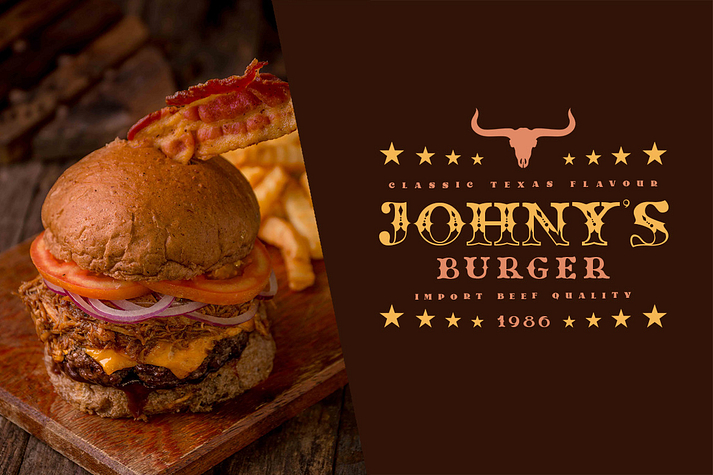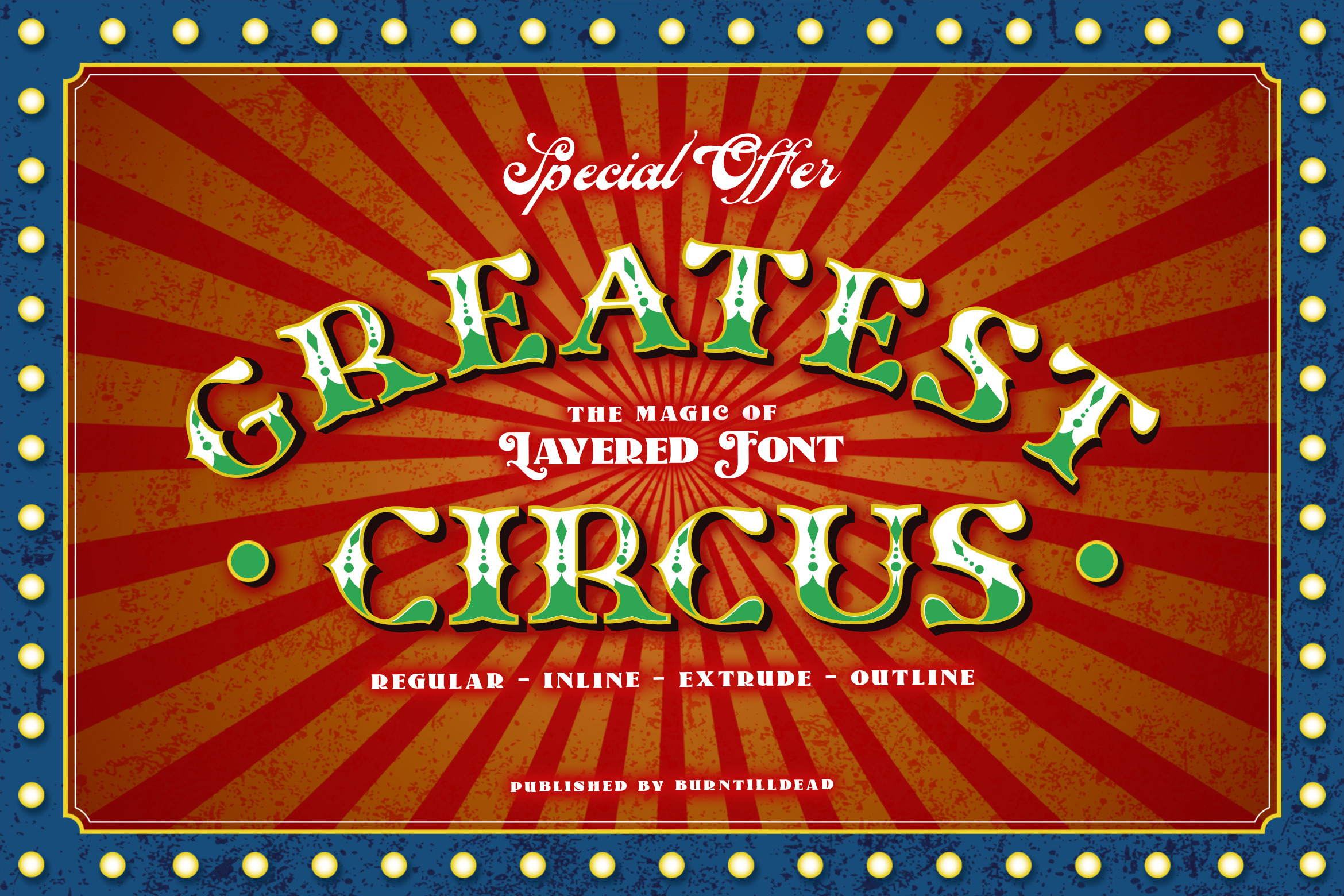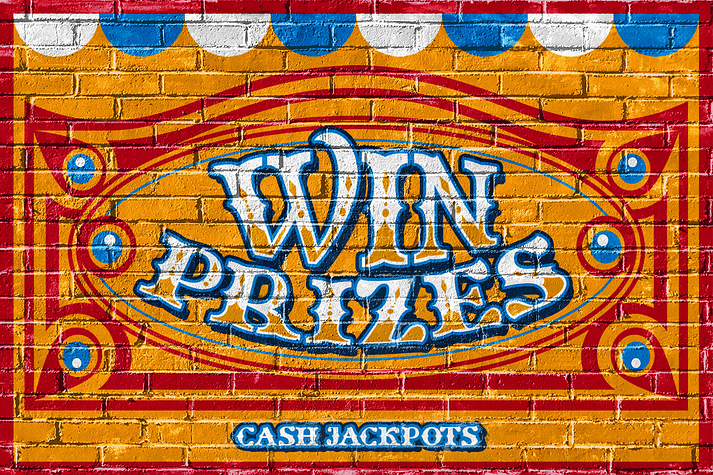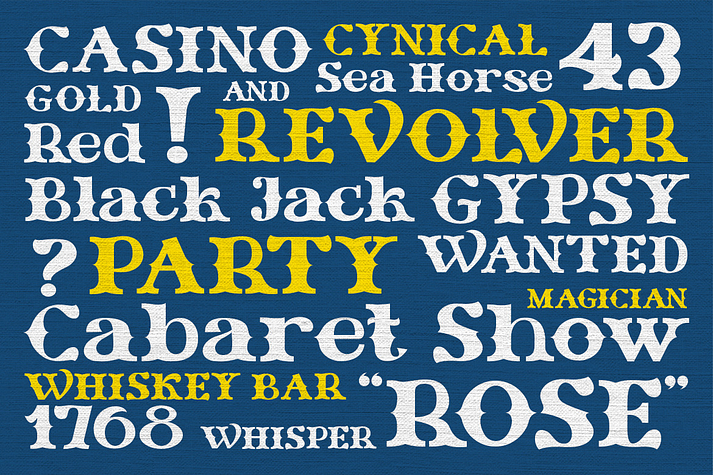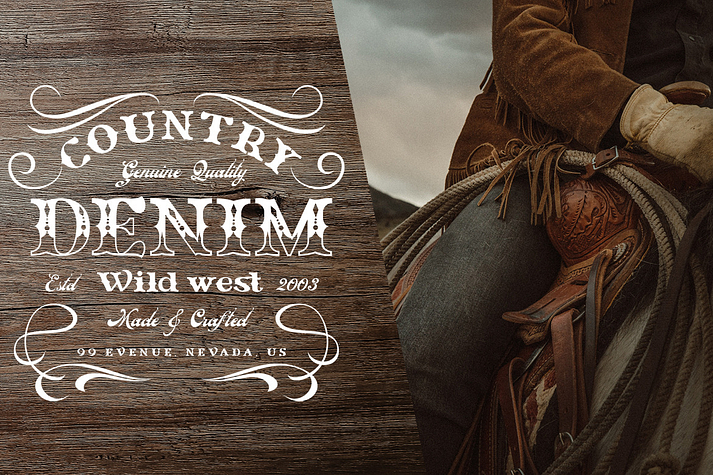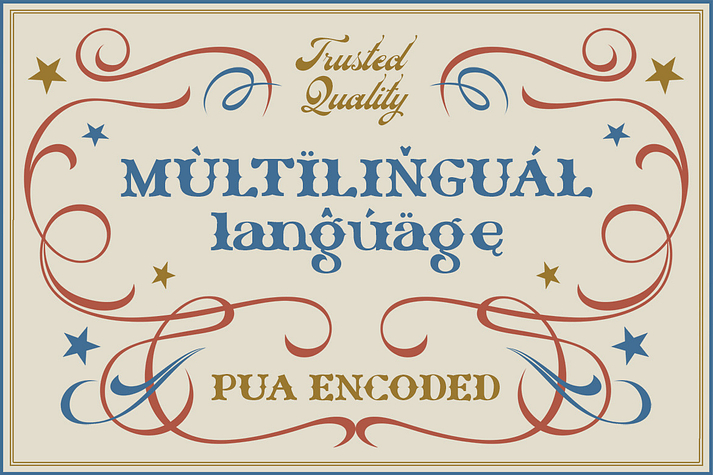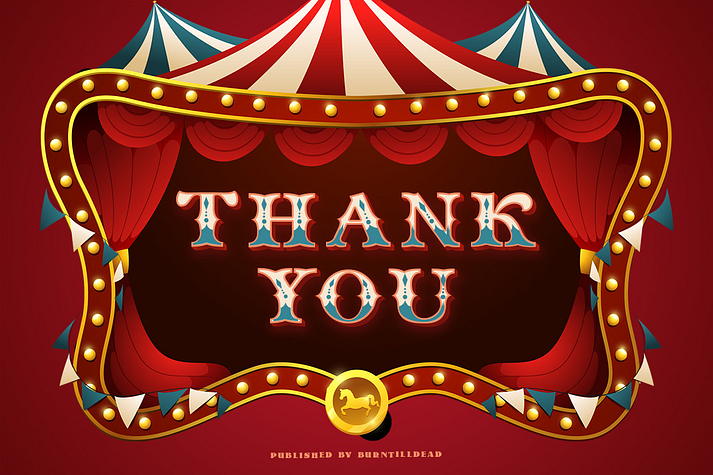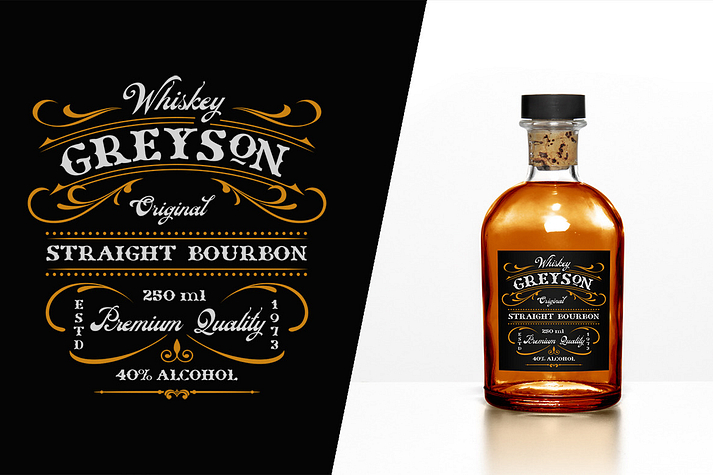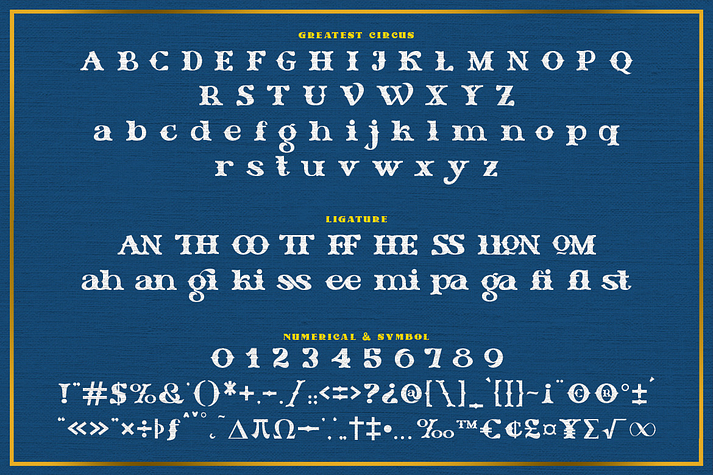
Greatest Circus
Greatest Circus is a slab serif font family. This typeface has four styles and was published by Burntilldead.
Introducing our latest font called "Greatest Circus", inspired by the classic circus logo sign. Made with layered system it came in 4 different style; regular, outline, extrude & inline). It’s really playful once you join each style together.
Greatest circus will be a great choice for carnival, music events, magician show, casino logo, etc.
Highly recommended for any entertainment & fun activity logos or ads that bring classic American vibes!